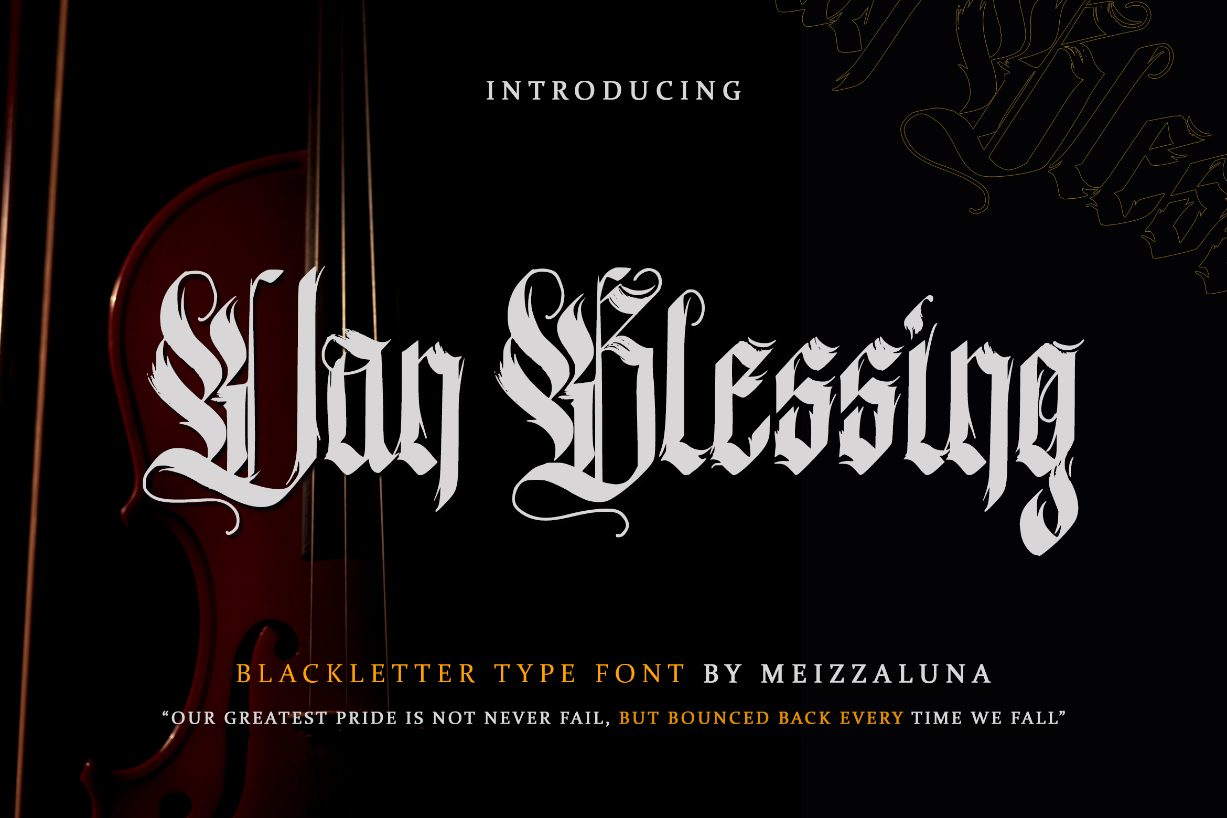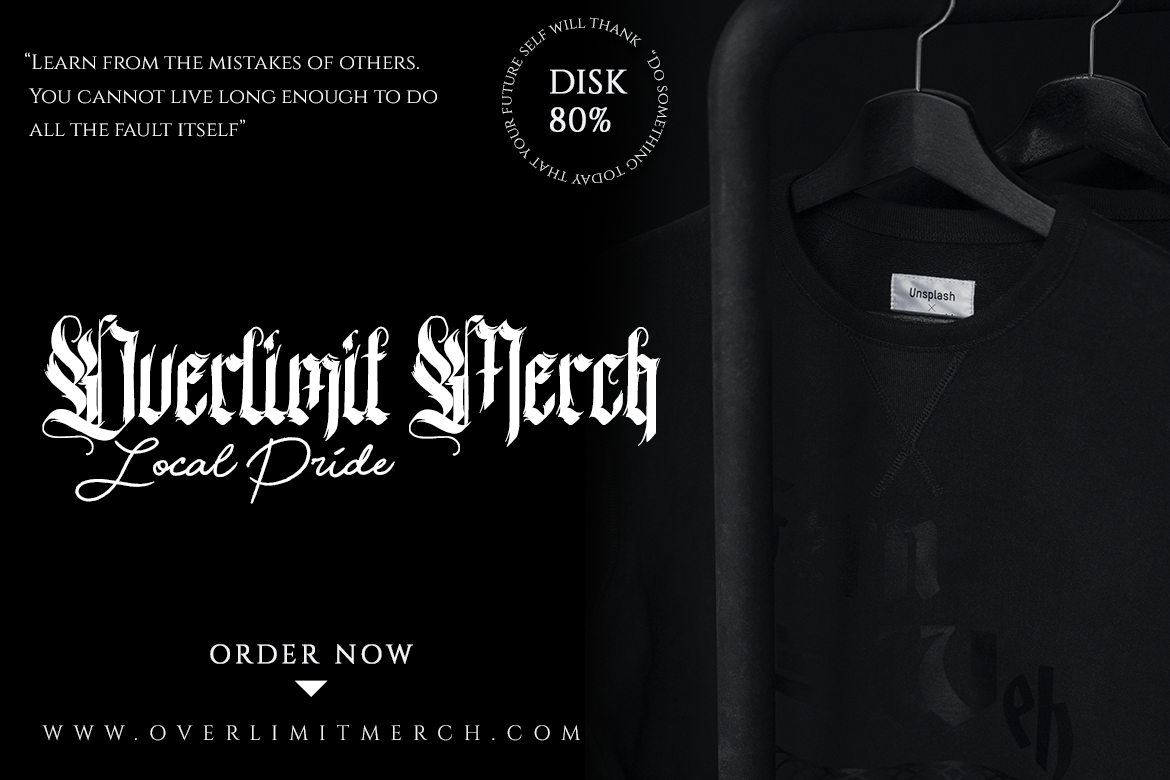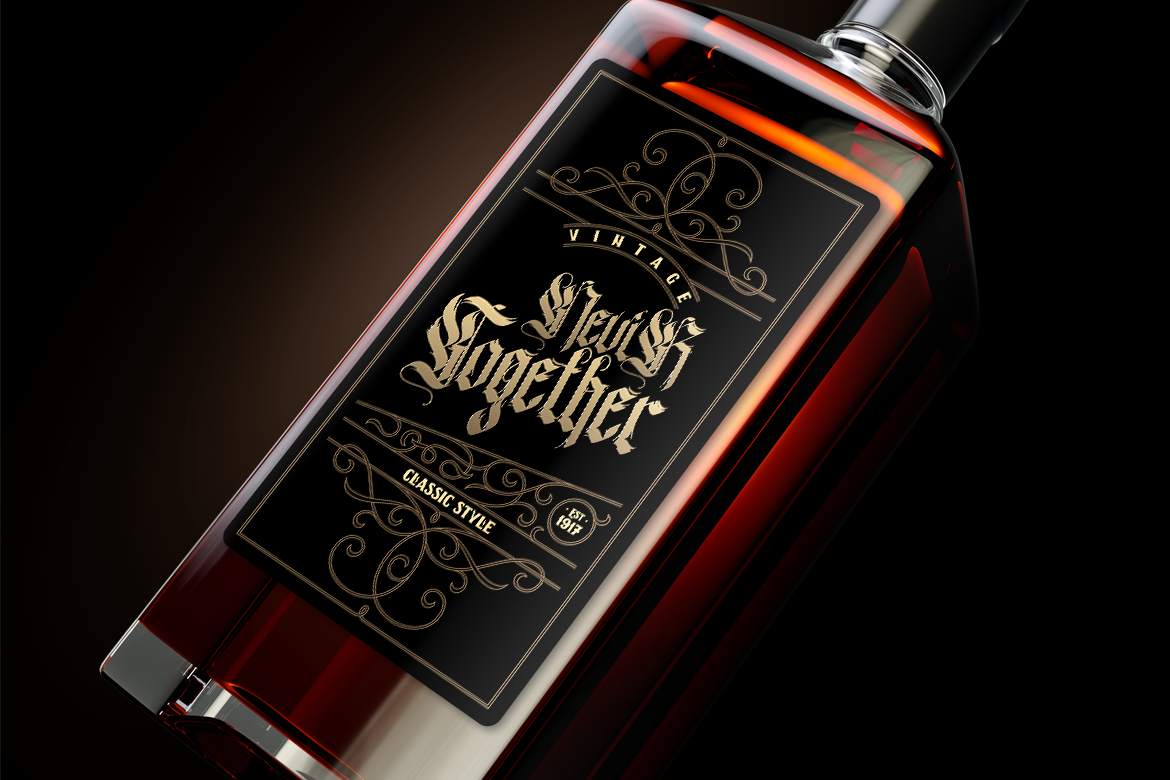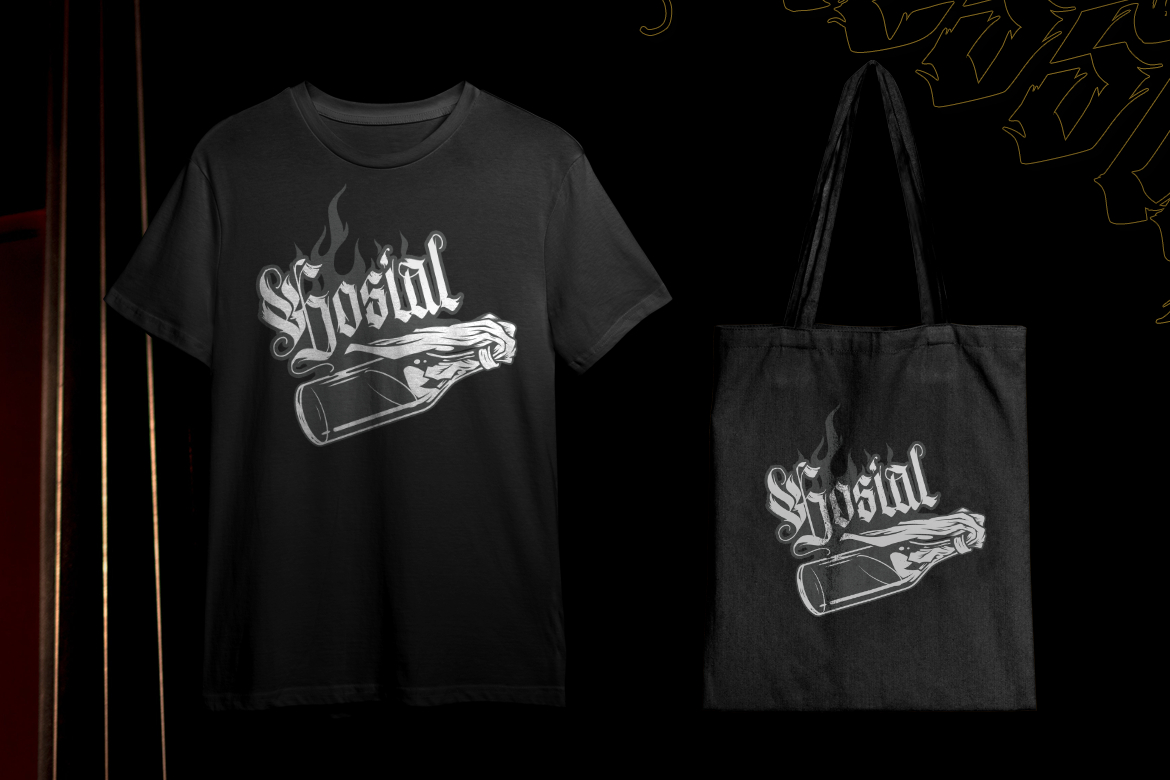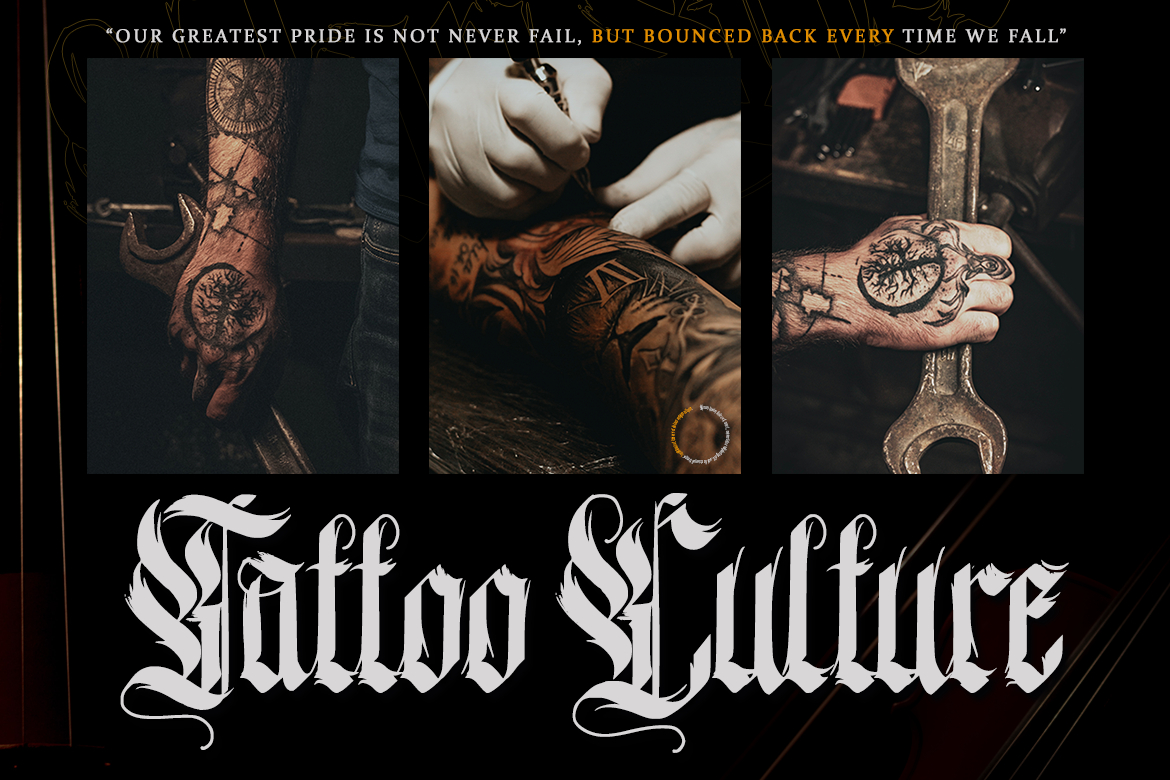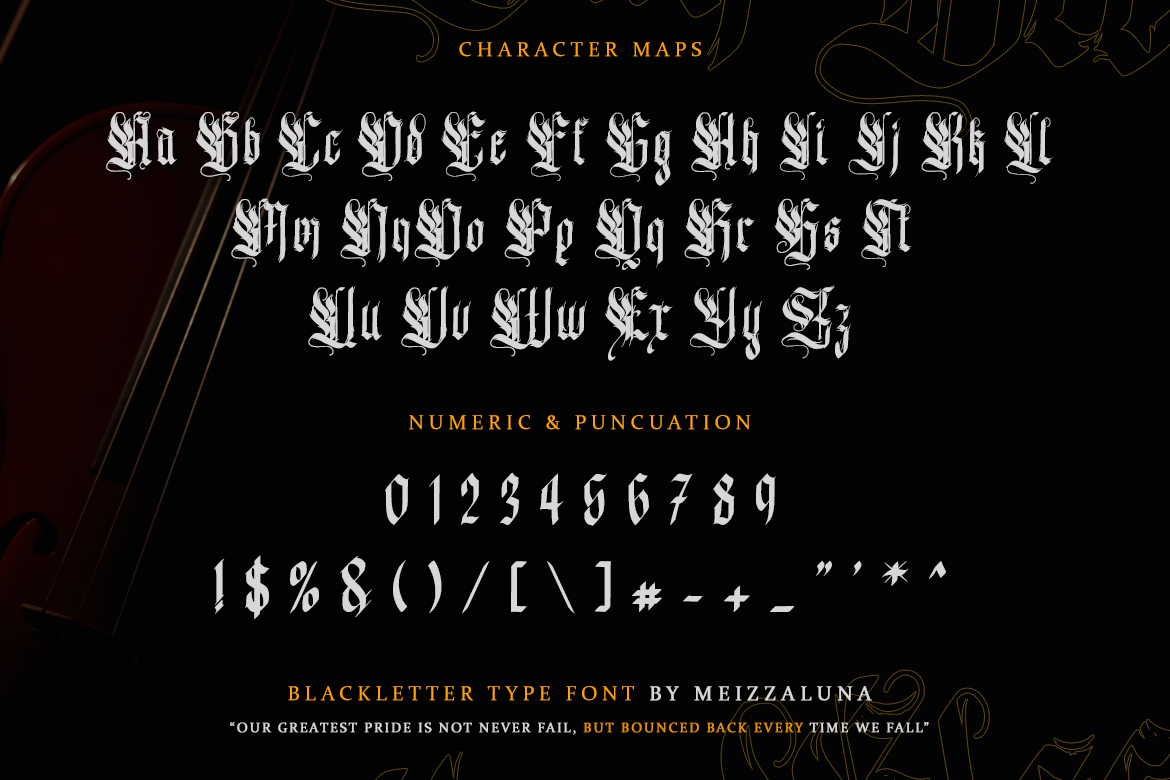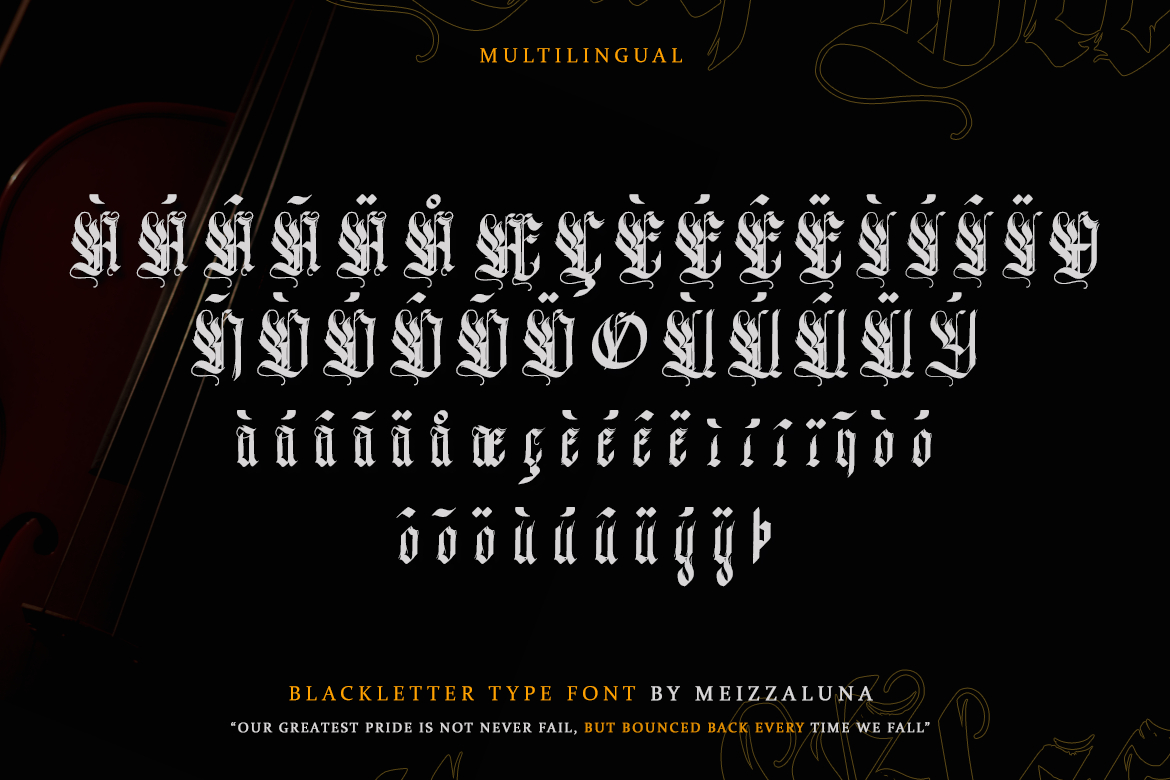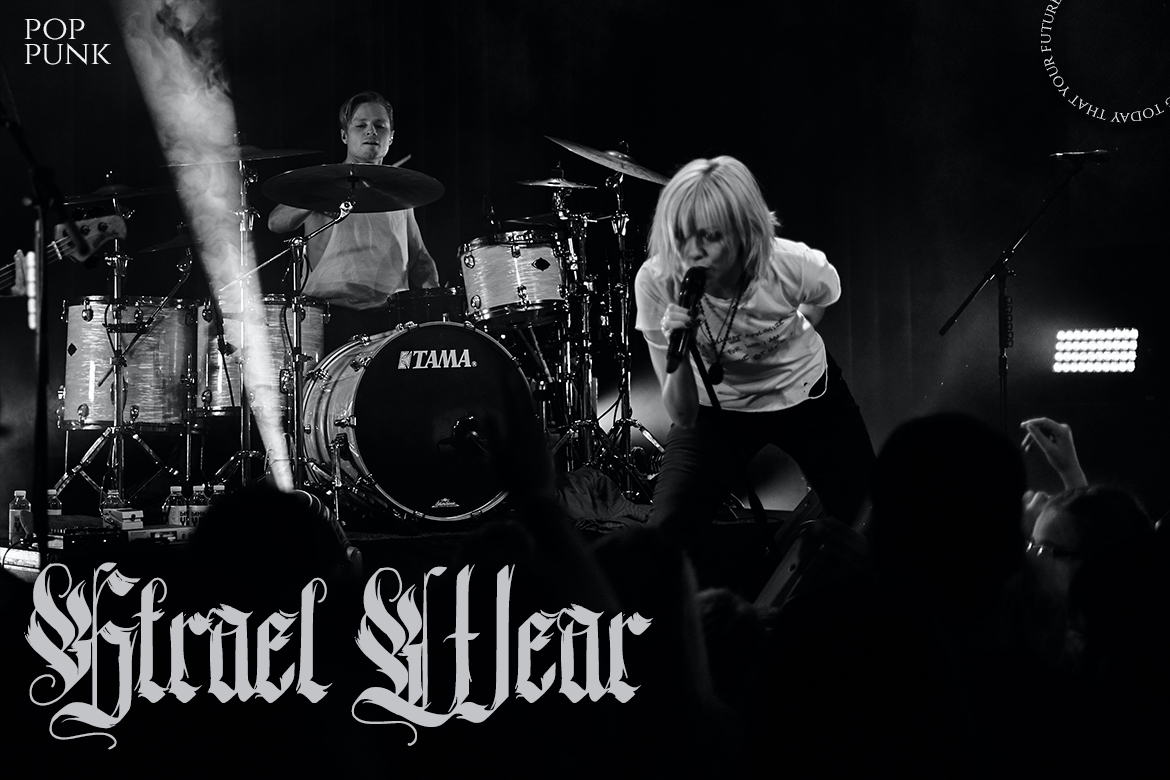
Van Blessing Font
Van Blessing is an elegant and classic black letter font that will impress with its stylish features. Use it for product packaging, branding, or other projects that need bold and daring typography!